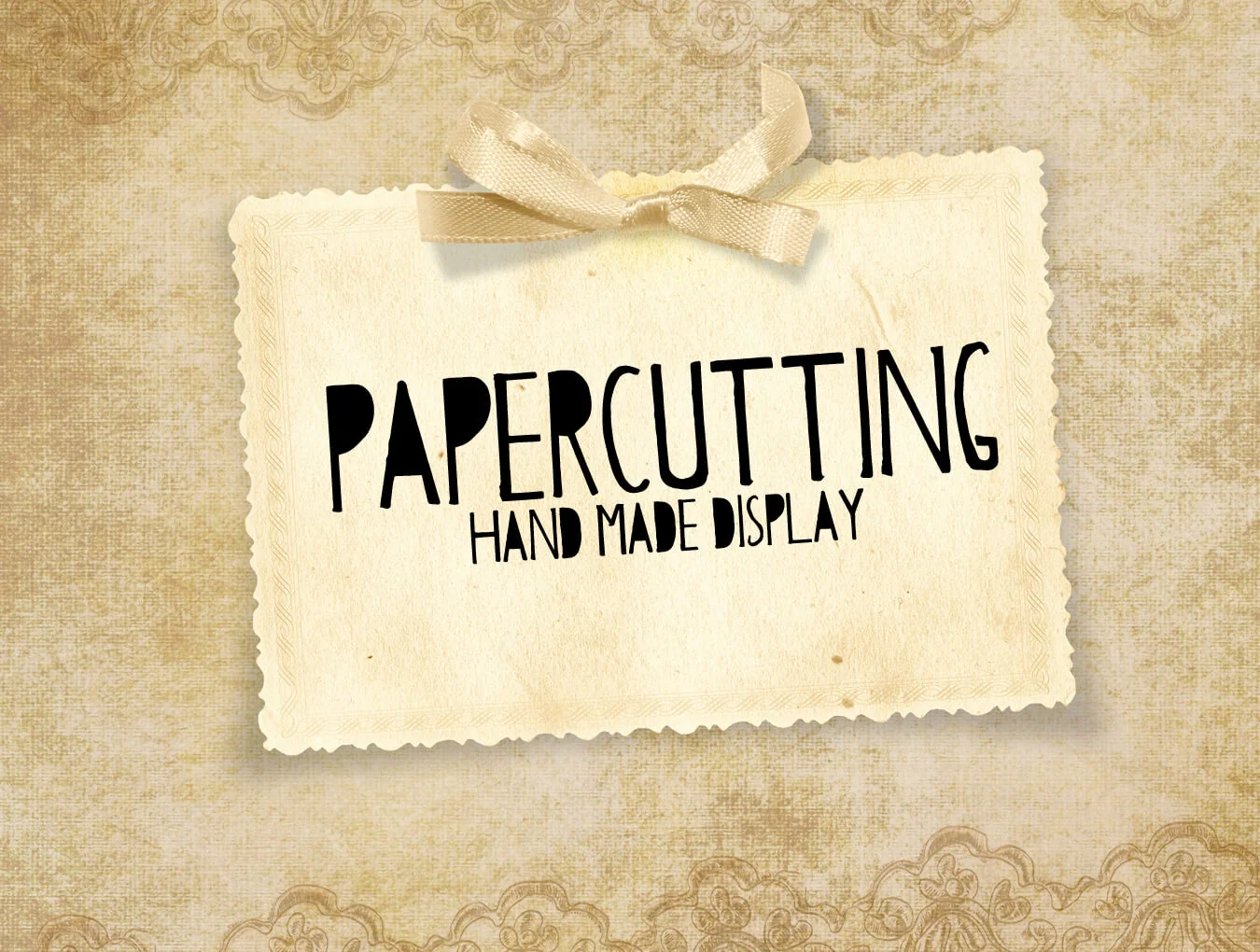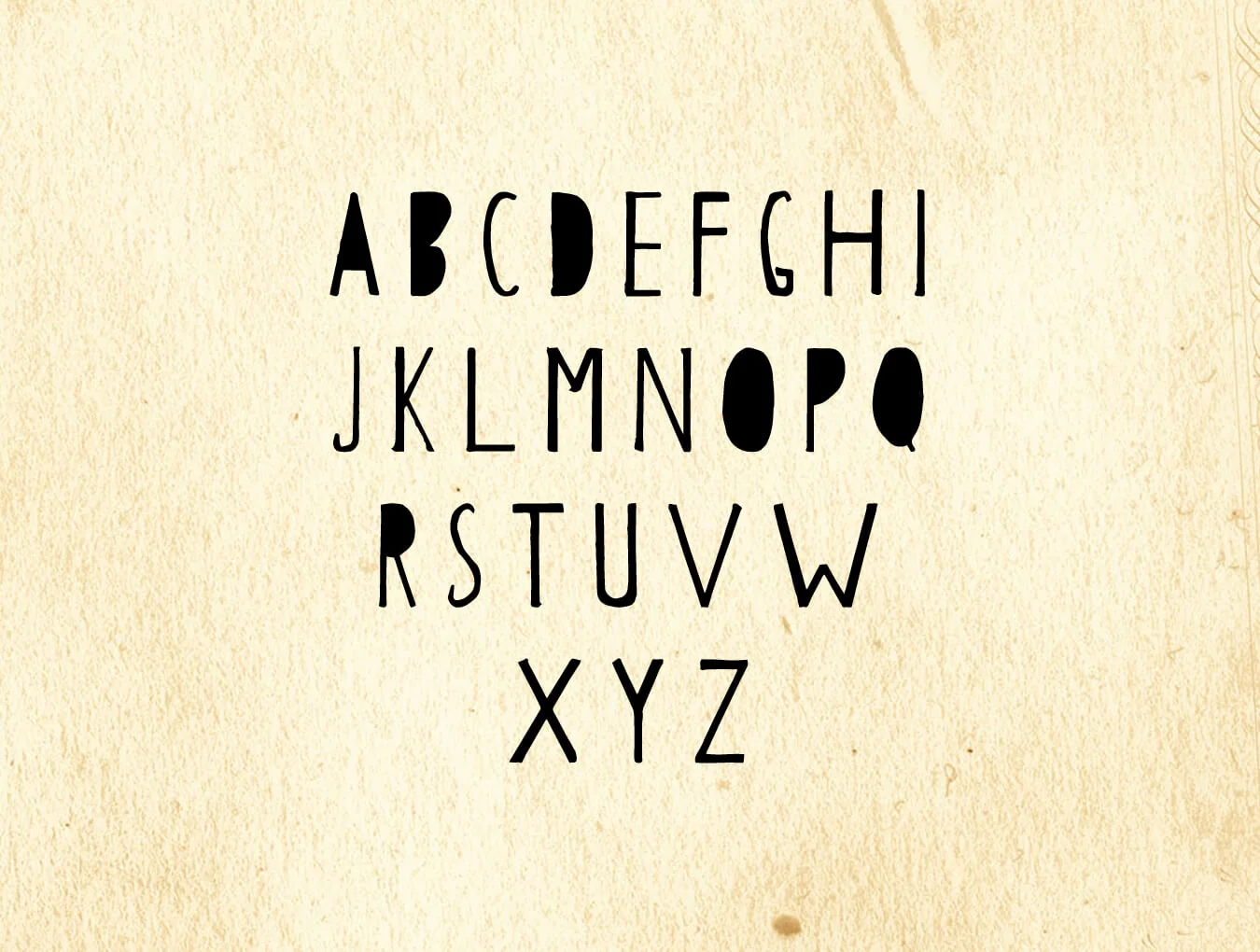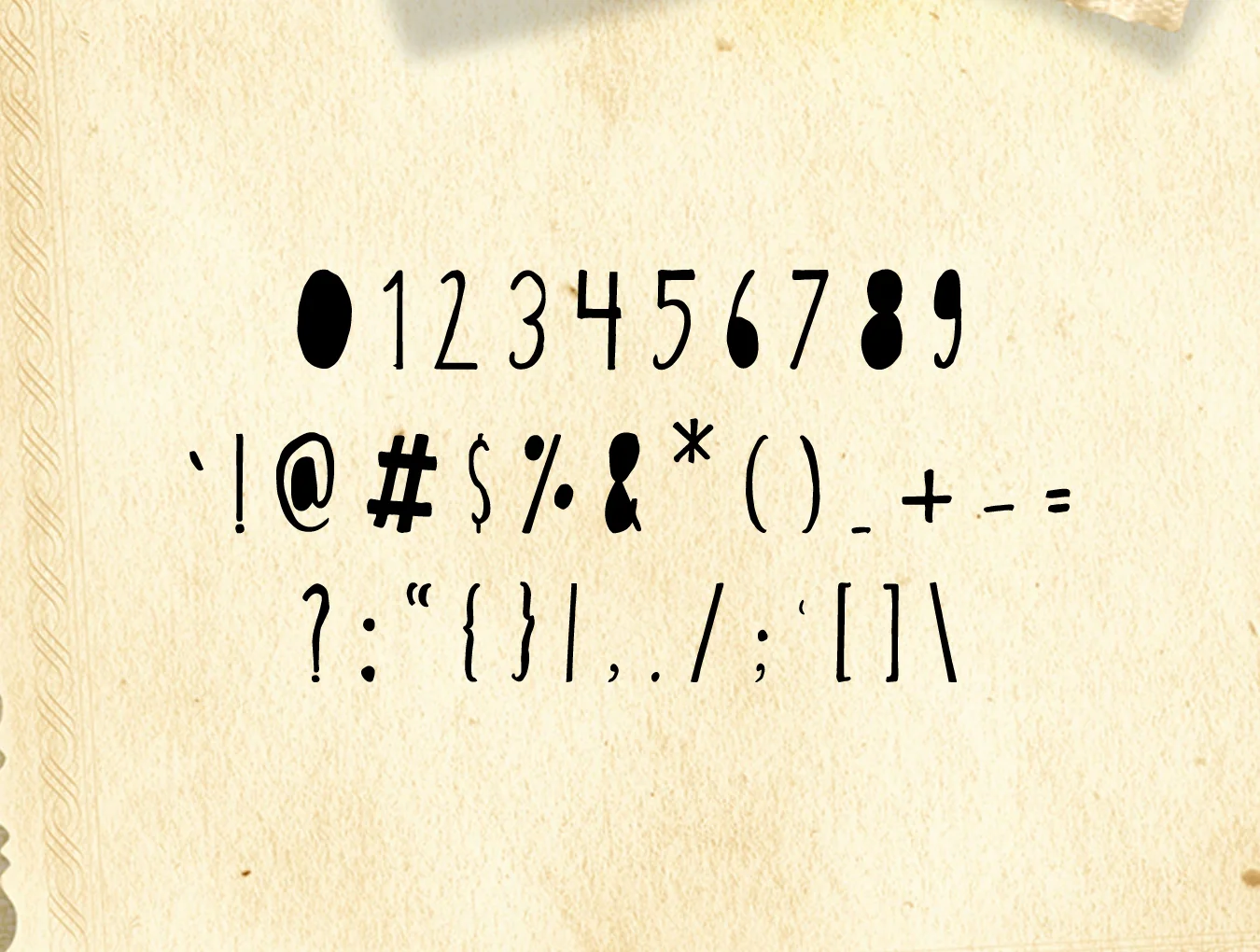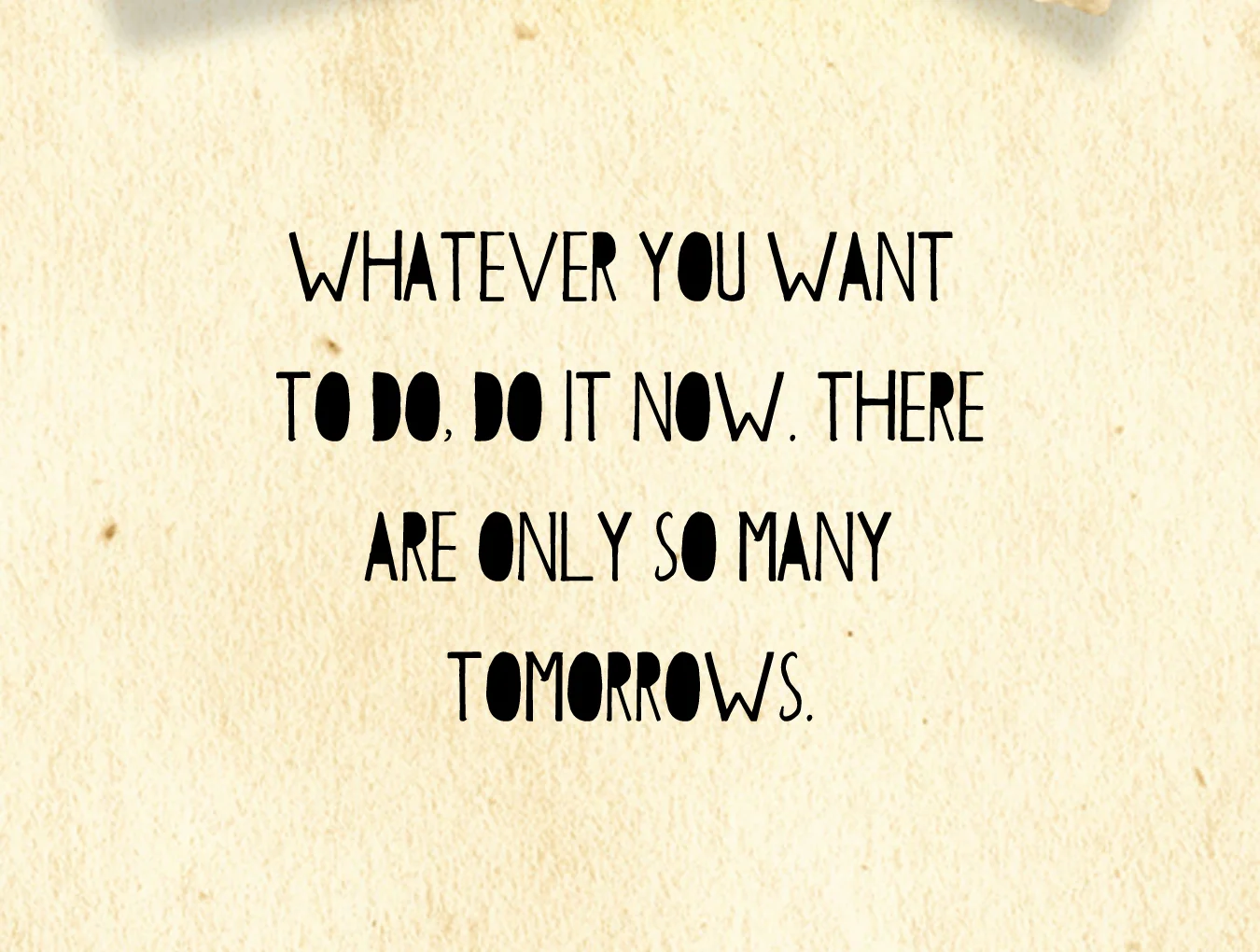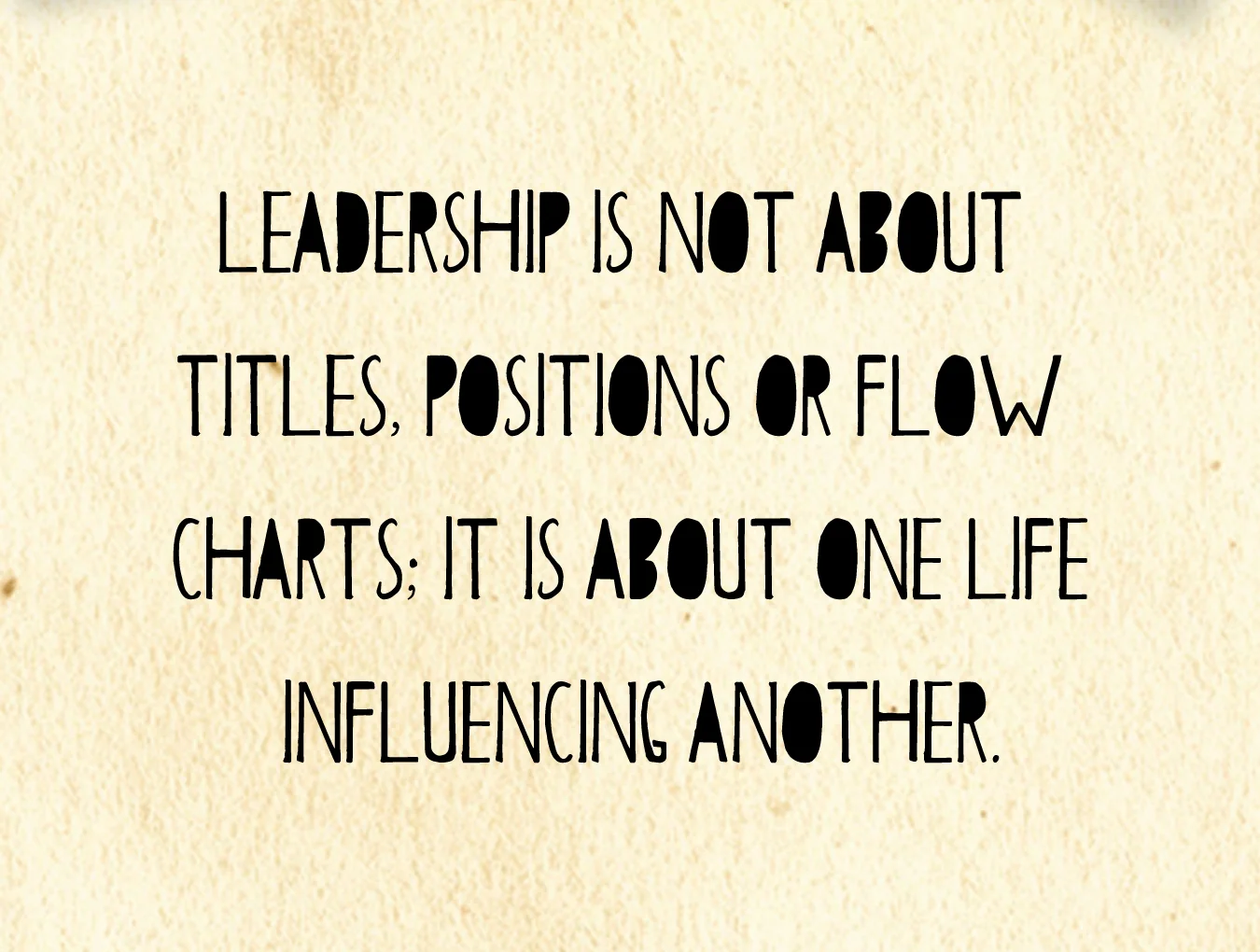
Papercutting Fonts
Papercutting 2 Typeface Family Bundle
Handcrafted Typeface
Multilingual Uppercase and Lowercase Letters
Introducing Papercutting, a charming hand-drawn typeface available in Regular and Outline styles. Fully crafted by hand, it reflects the look of paper-cut art and works beautifully for adding decorative detail to your designs.